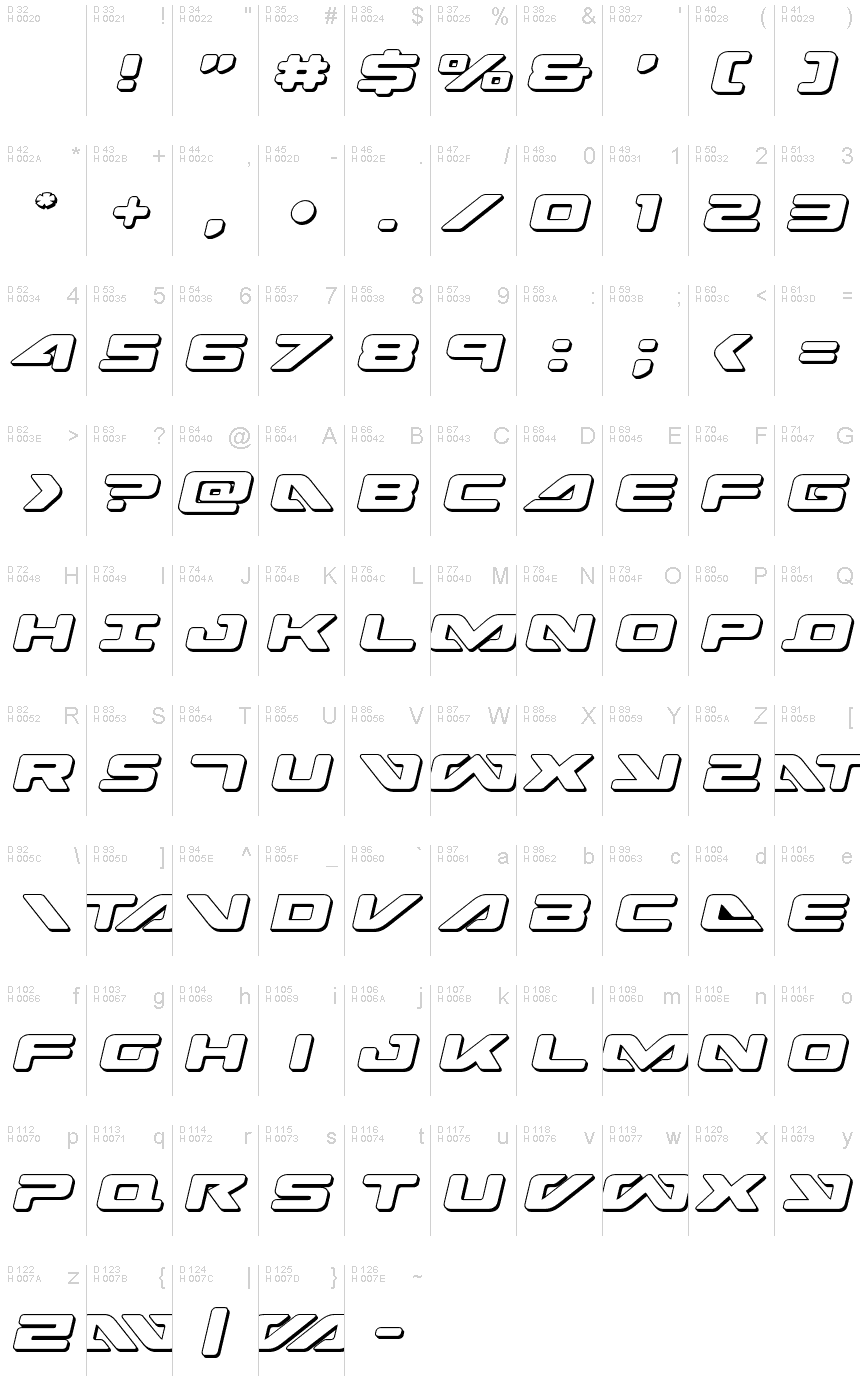
Ahoy! Meet Sea-Dog, the display font family that's perfect for all your nautical-themed projects. Designed by Iconian Fonts, Sea-Dog 3D Semi-Italic is an extra-bold and extra-expanded typeface that's sure to make waves. Its 3D style adds depth and dimension to your designs, while the semi-italic styling adds a touch of sophistication. Ideal for logos, signage, and branding materials for seafood restaurants or sailing clubs, this font will have you feeling like you're out on the high seas in no time. So hoist the sails and set a course for adventure with Sea-Dog!
Sea-Dog 3D Semi-Italic